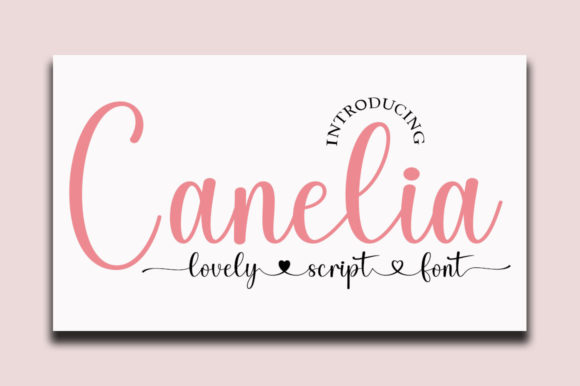
I’ll never forget the countless hours I spent searching for the perfect font for a client’s wedding invitation project. The design brief called for something elegant, sophisticated, and eye-catching. I scrolled through font after font, but nothing seemed to fit the bill. That was until I stumbled upon Canelia, a chic and refined script font that instantly caught my attention.
First Impressions: A Love Affair with Canelia
Canelia is a game-changer for designers, crafters, and creative hobbyists looking for a font that exudes luxury and poise. Its stylish alternates and ligatures make it the perfect match for any project, from wedding stationery to branding and packaging. I’m obsessed with this font, and here’s why:
- ✨ Elegant and refined design that’s perfect for high-end projects
- 💫 Stylish alternates and ligatures for added creativity
The Honest Review: Weighing the Pros and Cons
While Canelia has stolen my heart, it’s not without its quirks. Here are a few things to keep in mind:
- ⚠️ Some users may find the font a bit too ornate for certain projects
- 🤔 Limited availability of certain characters, such as tabular figures
However, for most design projects, Canelia’s benefits far outweigh its limitations.
The Designer Inspiration Behind Canelia
Canelia’s design story began with a passion for elegant typography. The font’s creator drew inspiration from classic calligraphy and refined script fonts, aiming to craft a font that exudes sophistication and luxury. The result is a font that’s both timeless and trendy, perfect for designers seeking a high-end look.
Q: Is Canelia suitable for body text?
A: While Canelia is an elegant font, it’s best suited for headlines and titles. Its ornate design may not be ideal for large blocks of body text.